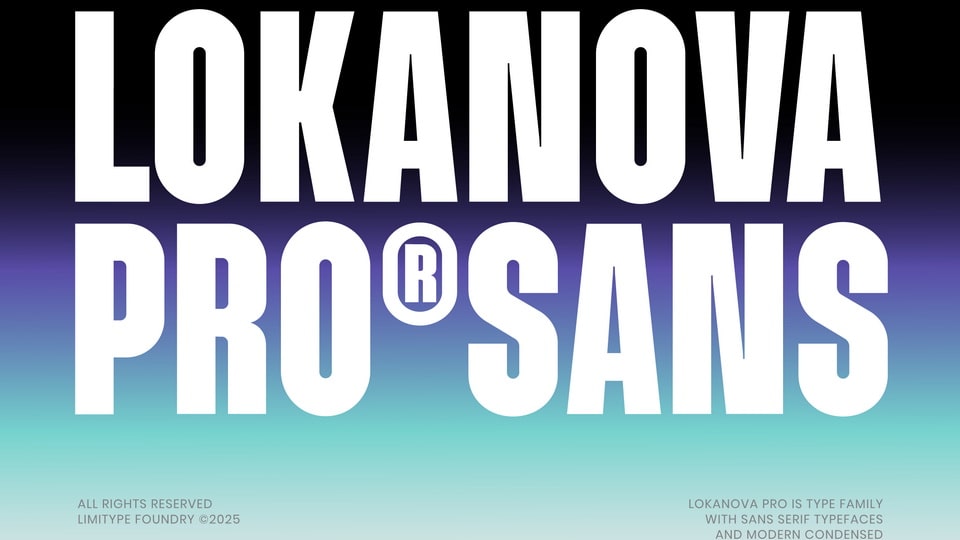
Download Lokanova Pro font, an updated family that is more versatile and enriched with additional glyph characters. Lokanova Pro is suitable for display needs or designs that require large text, and it can also serve as body text